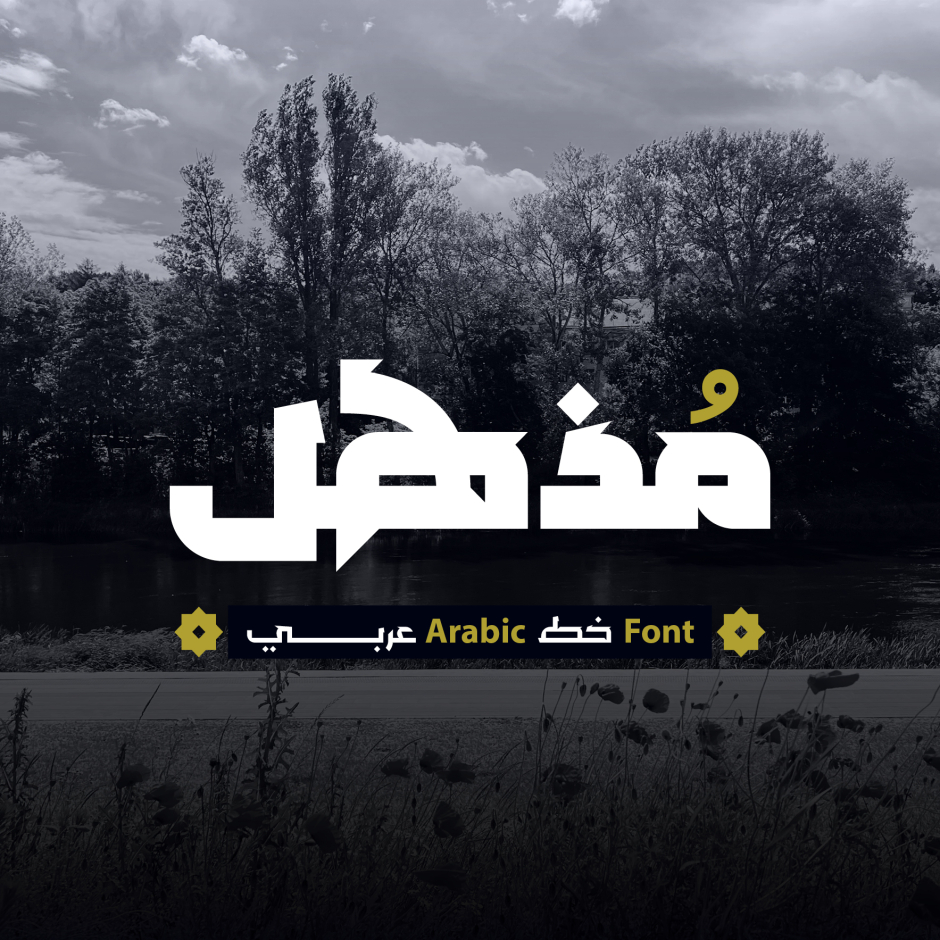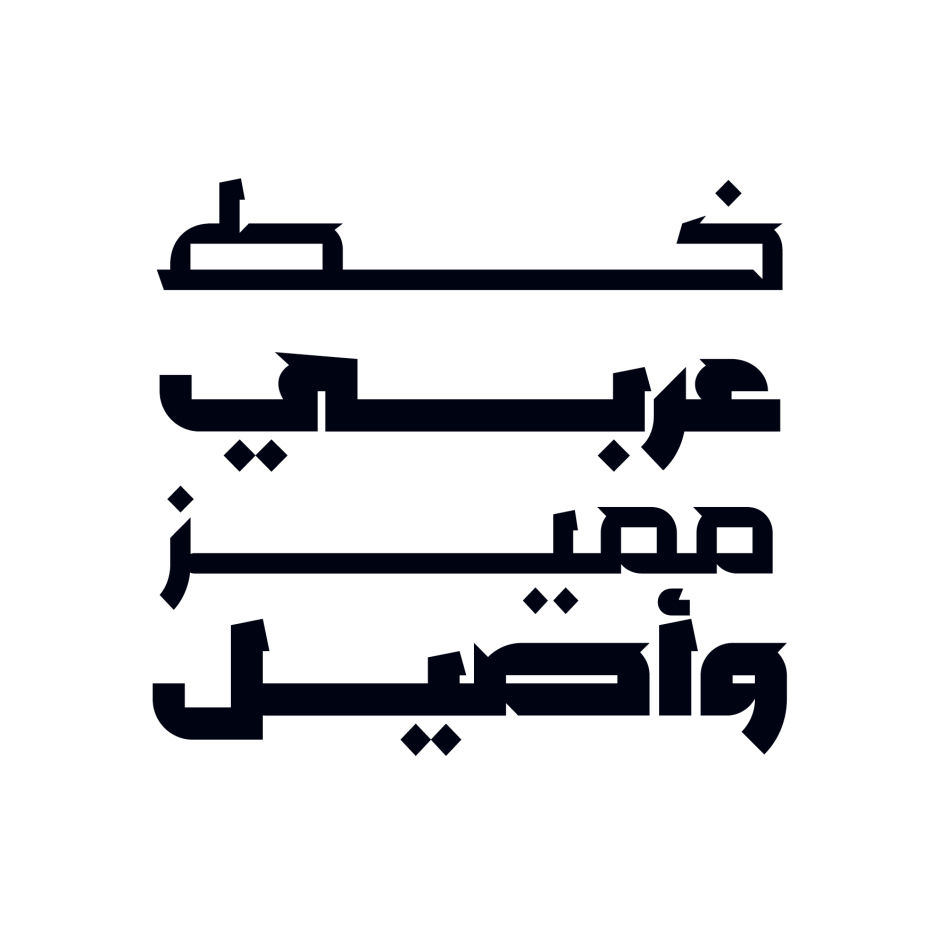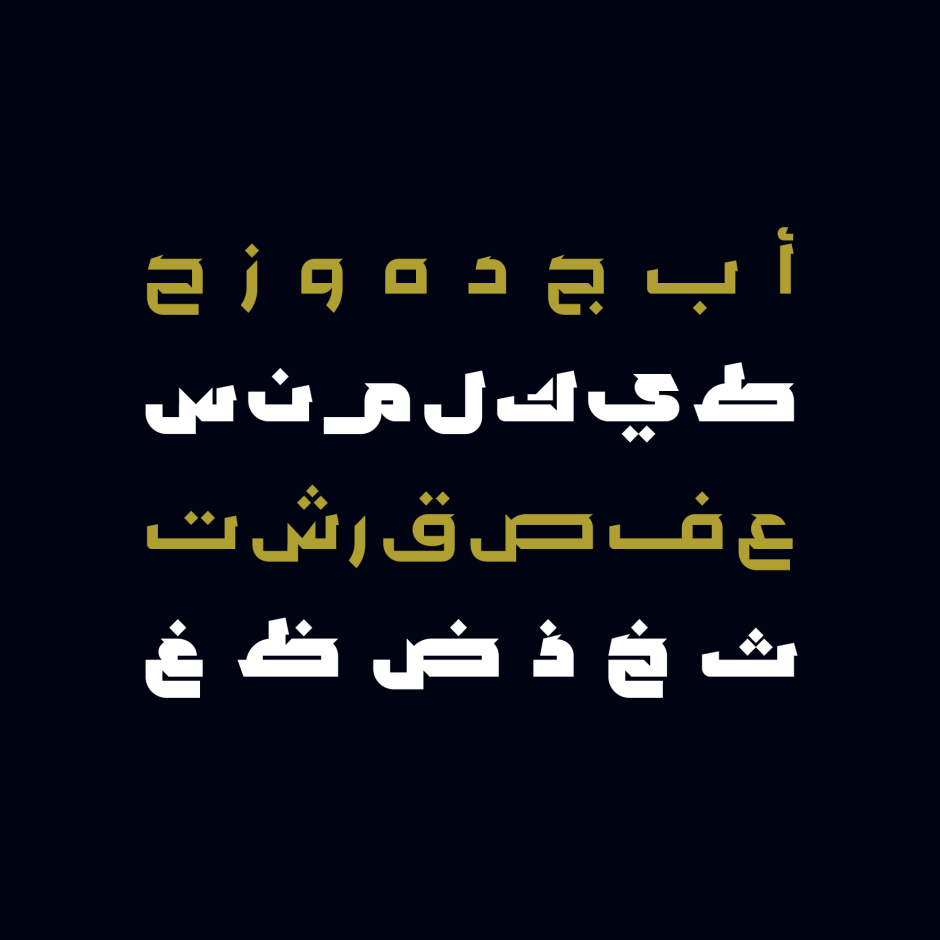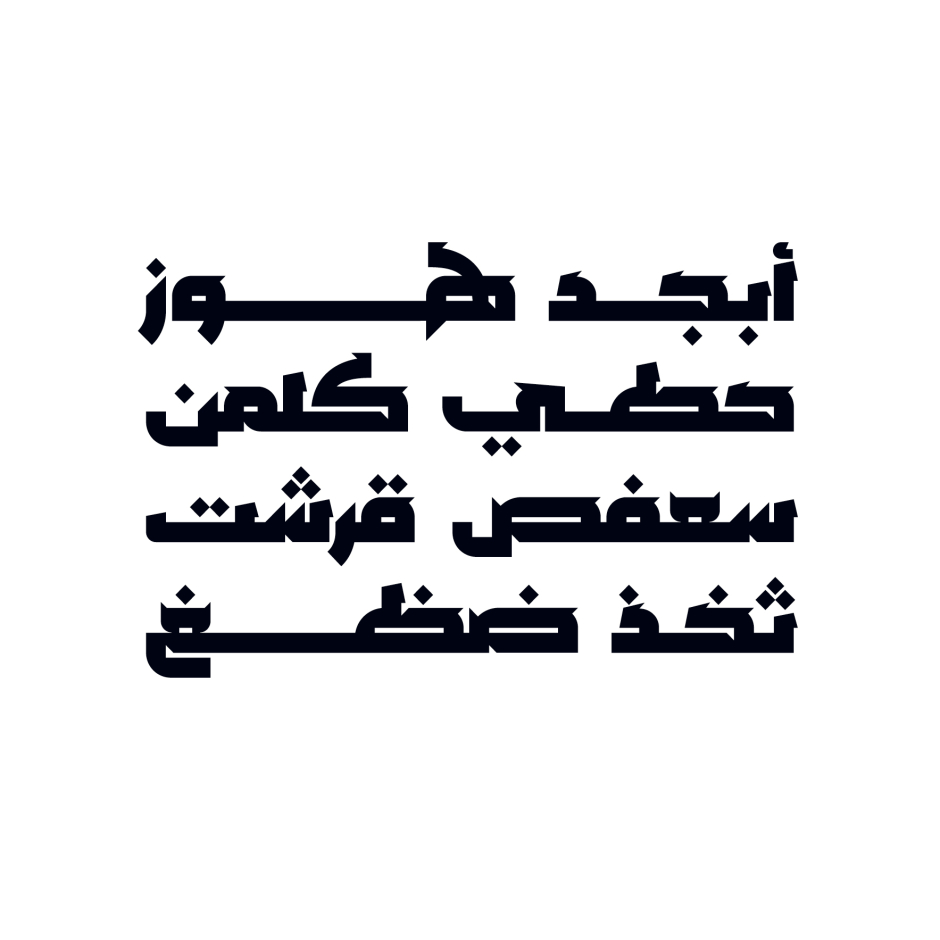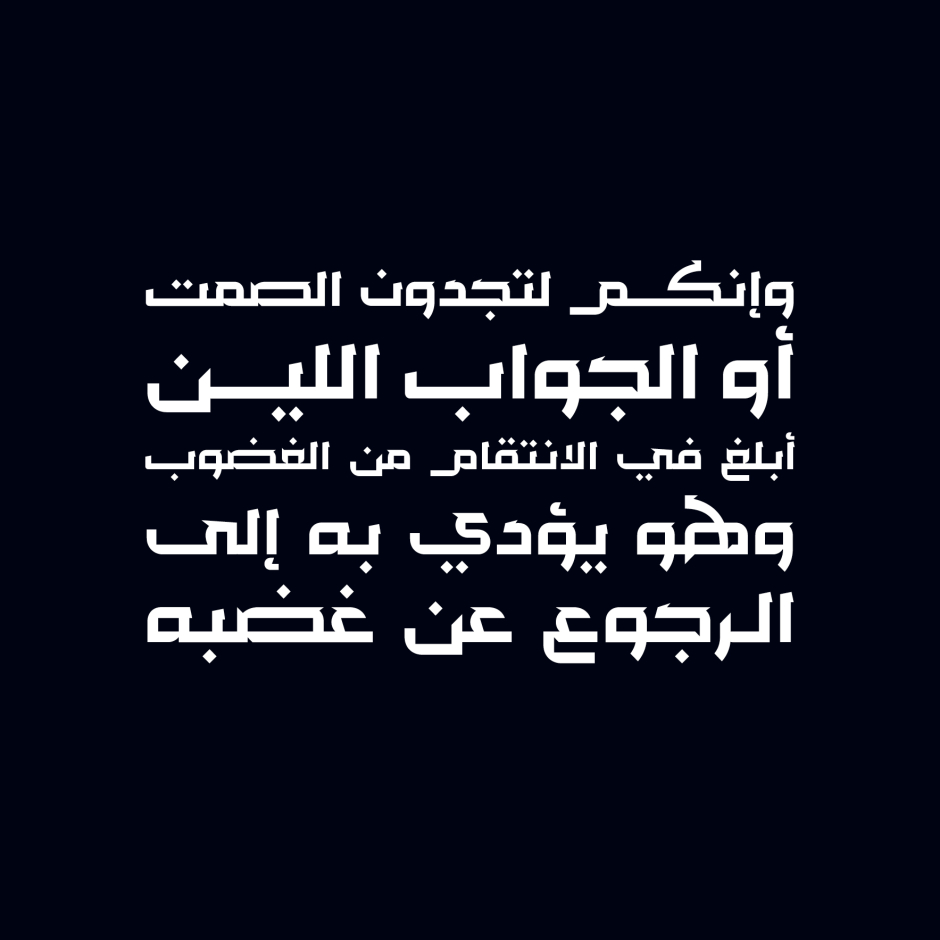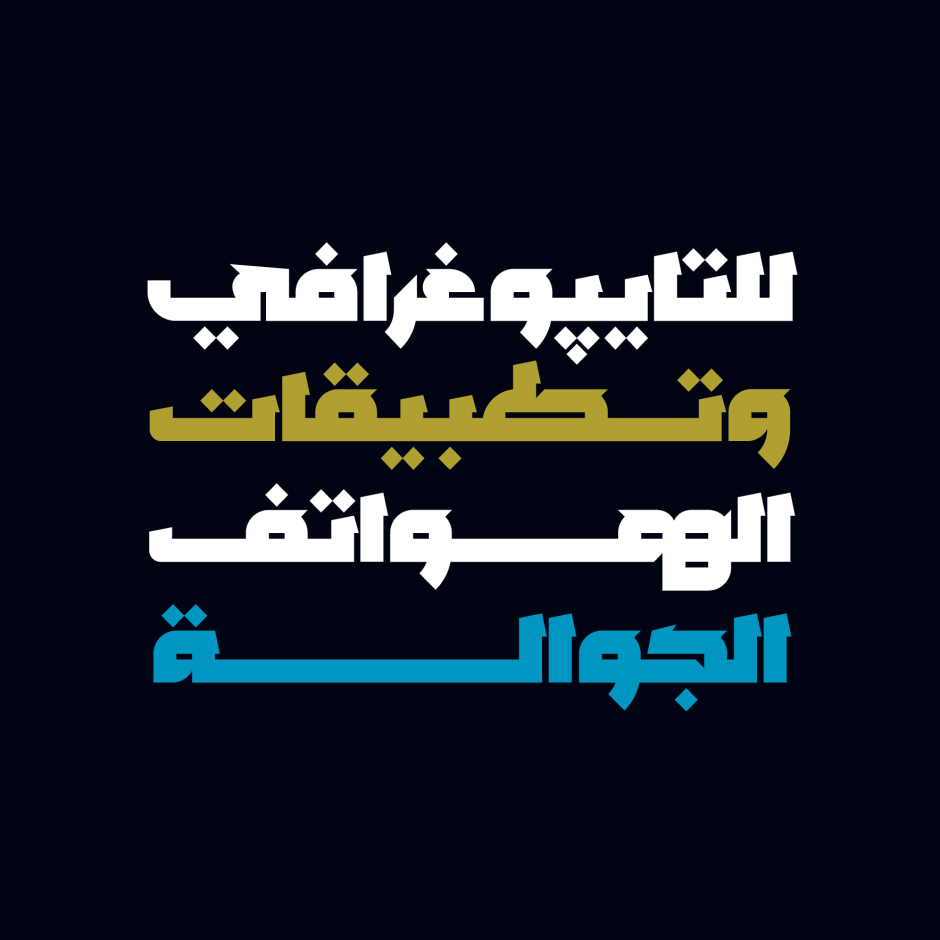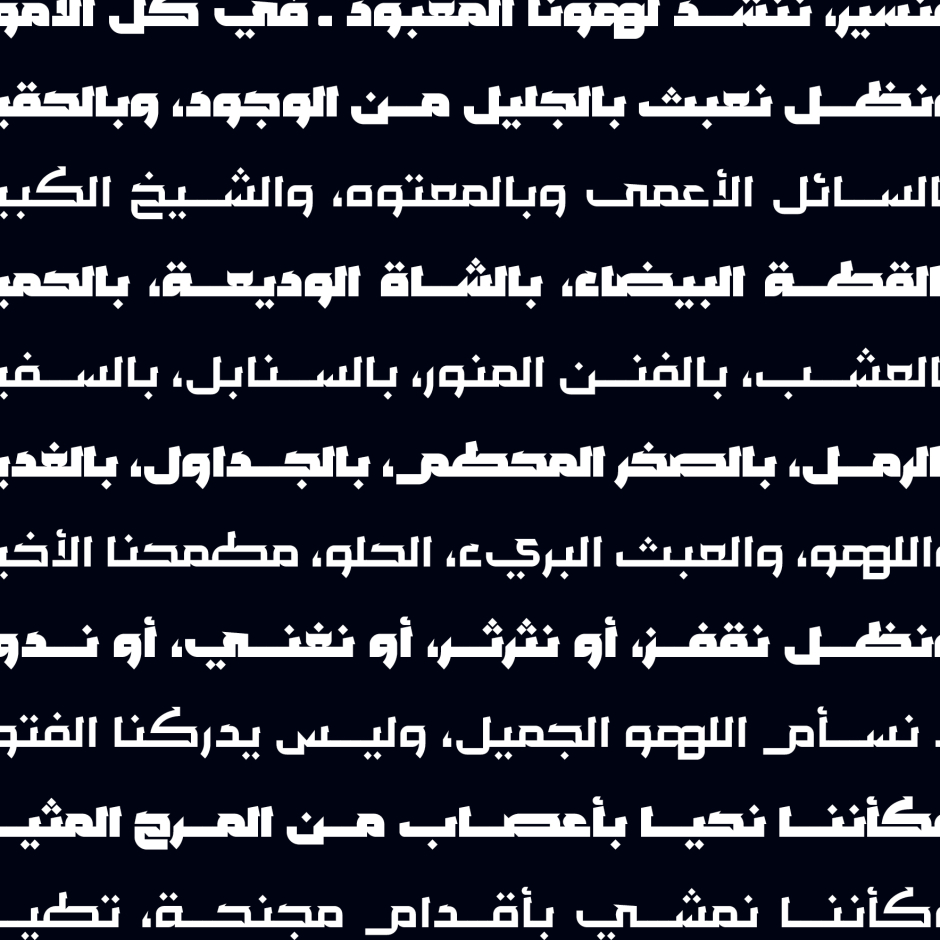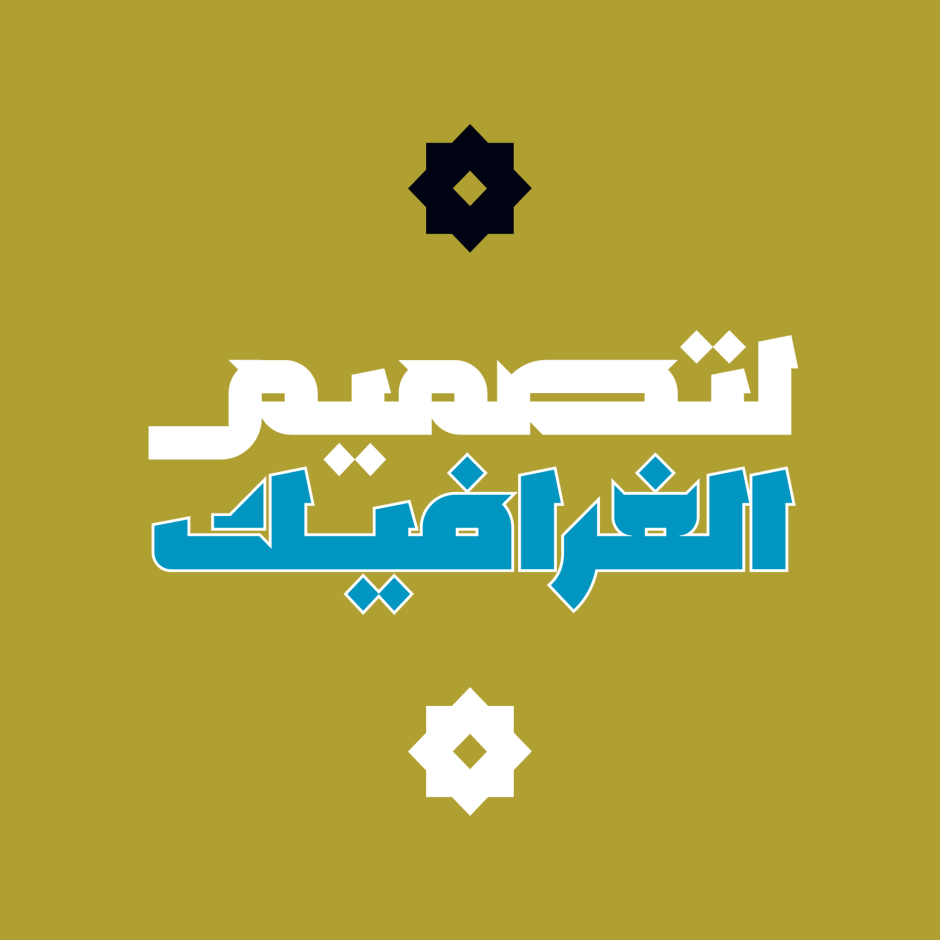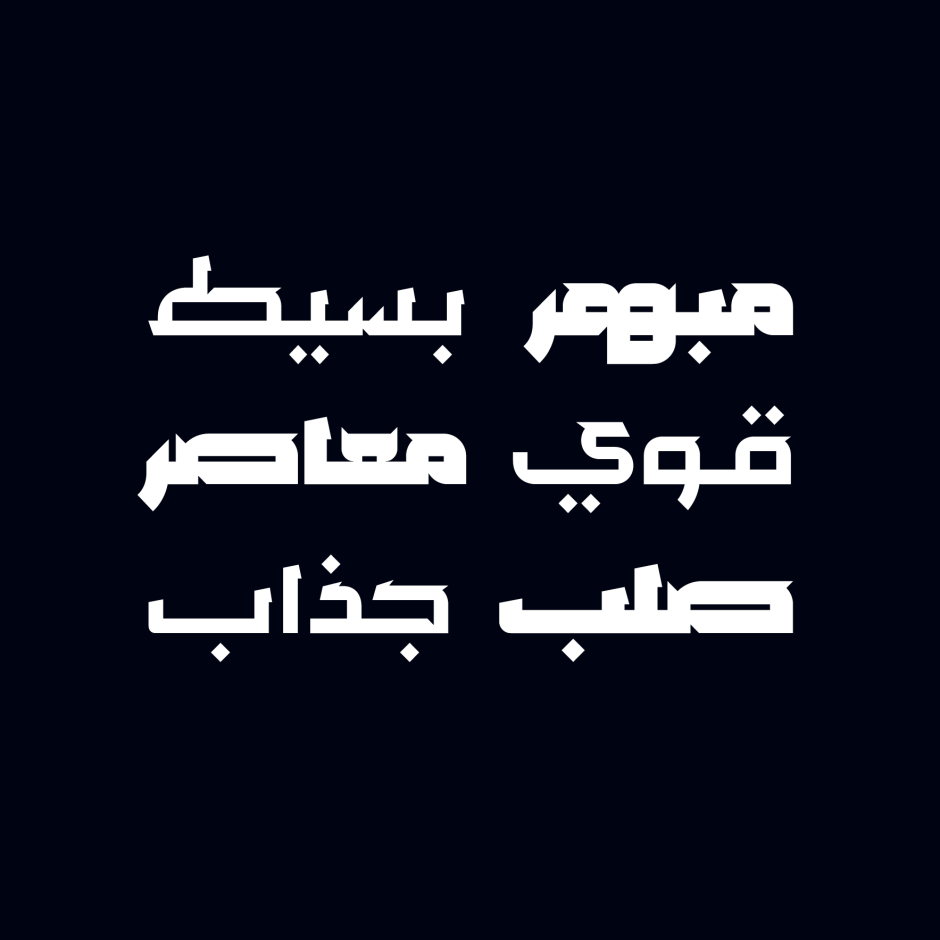
Mozhel
Mozhel (the Arabic for ‘Astonishing’) is an Arabic display font that blends the authenticity of Ancient Kufic script with modernism and simplicity. The typeface suits all creative projects including web, print and mobile applications. Mozhel includes two weights (Regular and Bold) and it supports Windows and macOS.